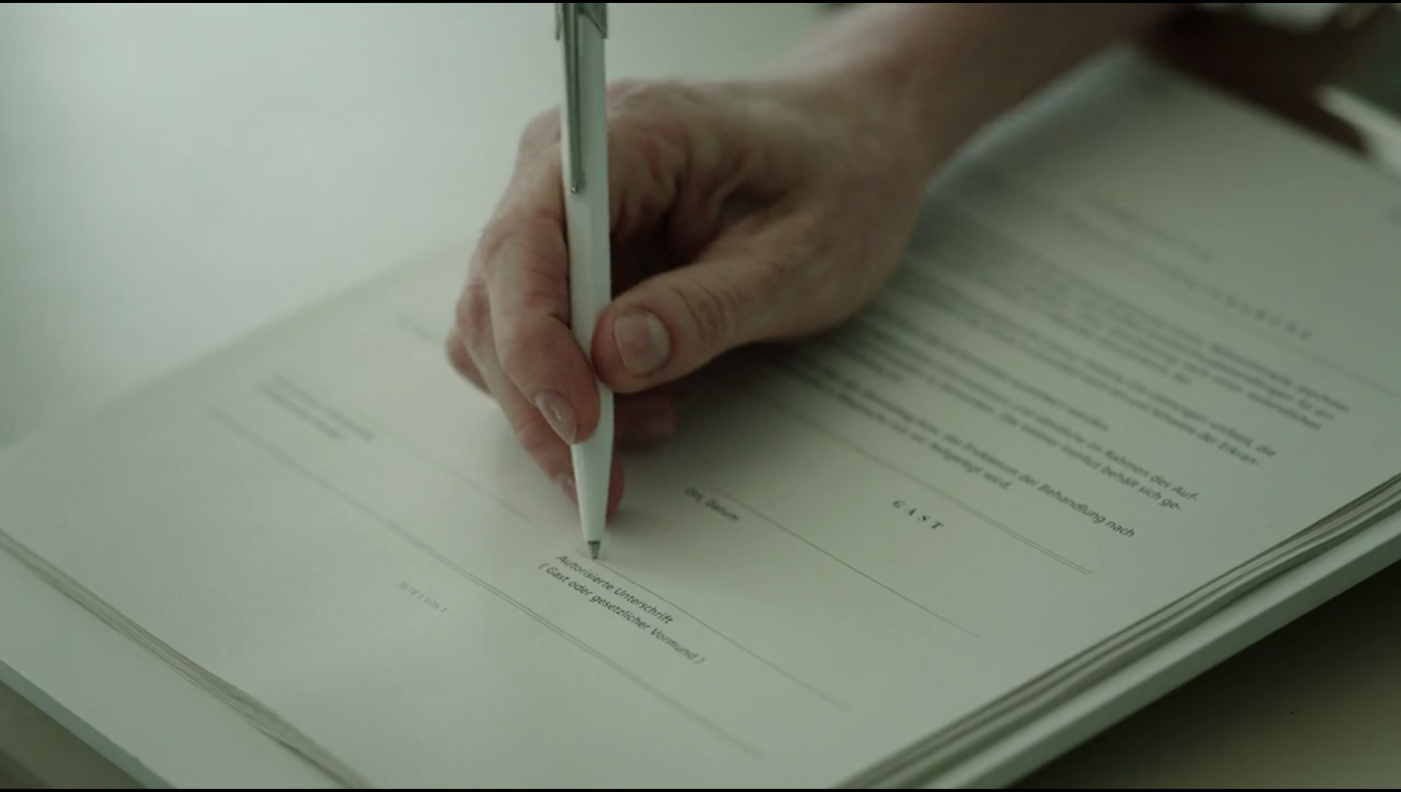
Cure for Wellness document font
In the movie "A Cure for Wellness", the protagonist (portrayed by Dane DeHaan) ought to sign a document in the beginning to speak to the manager of the facility. I'd like to know what sans serif font is used in this document. I know it's not much of a sample, but I hope someone can help me with this, nonetheless.